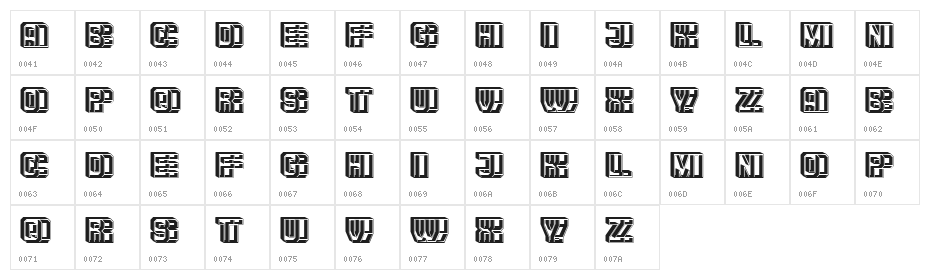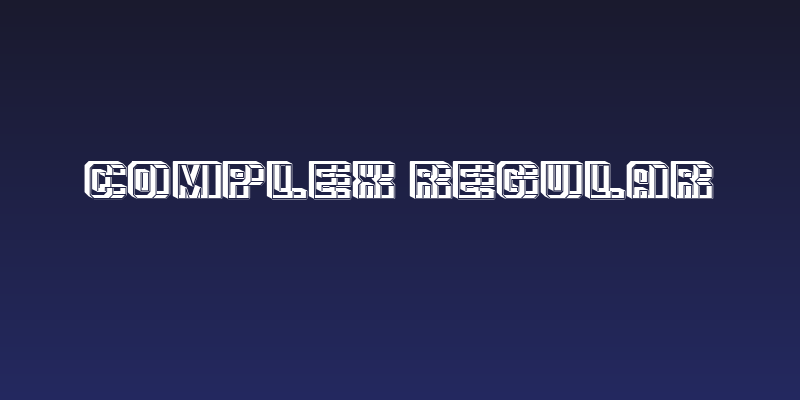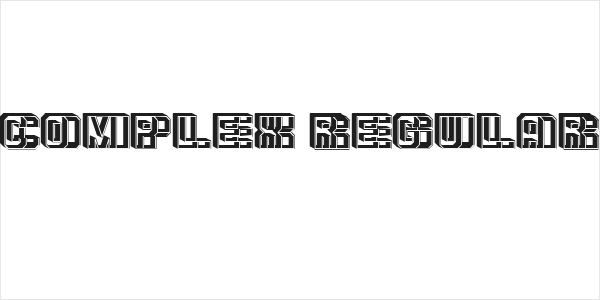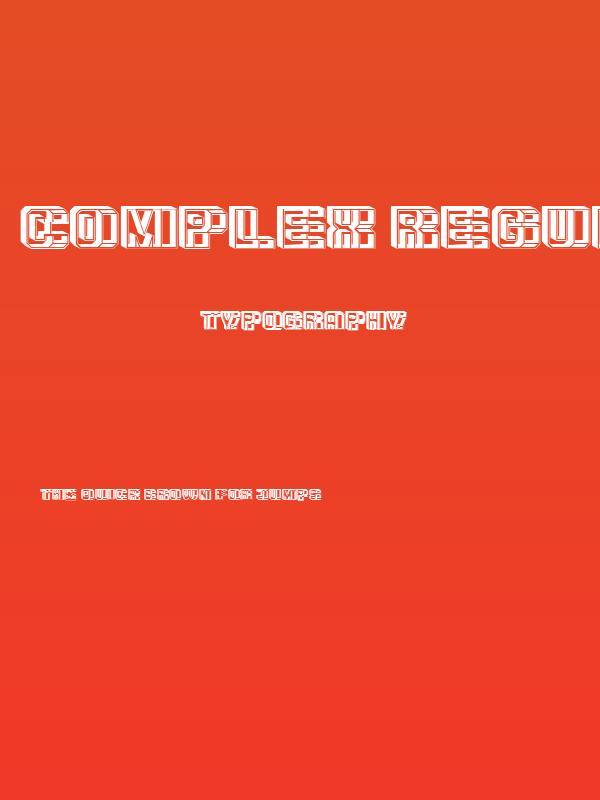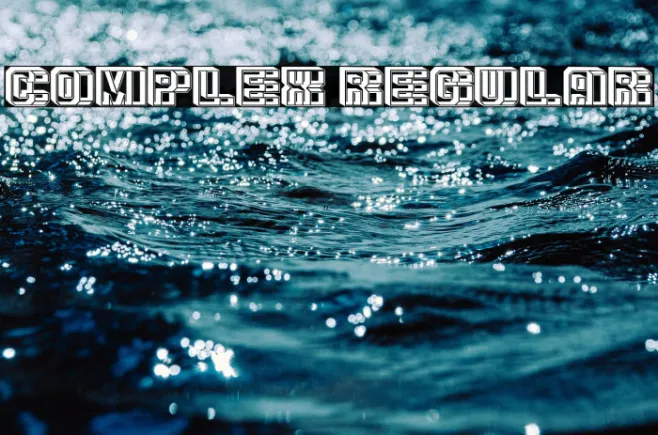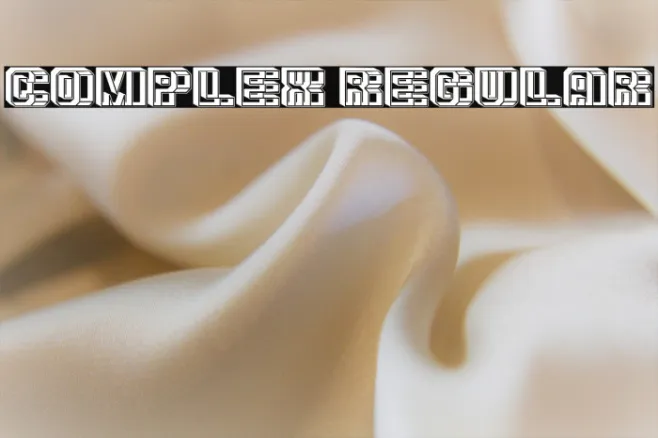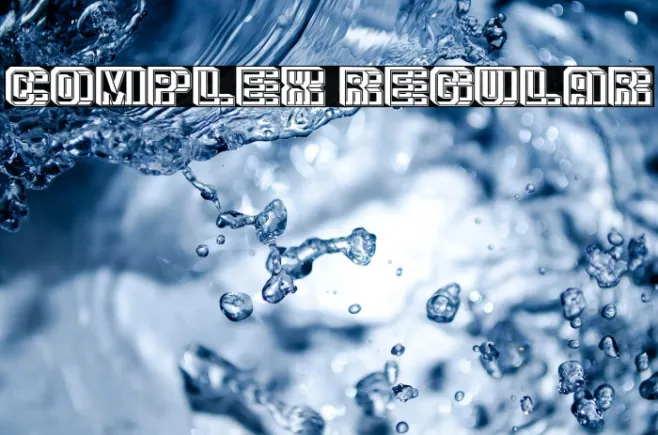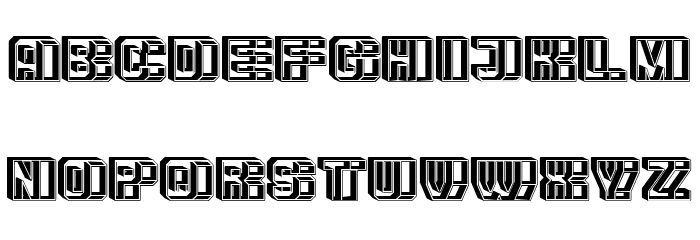
Complex Regular Font
Complex Regular Description
This font features a bold, three-dimensional appearance with a layered, geometric design. Each character is outlined with multiple layers, creating a sense of depth and complexity. The uppercase letters are particularly striking, with sharp angles and a blocky structure that gives them a strong presence. The lowercase letters maintain the same style, ensuring consistency throughout the typeface. The numbers and special characters are designed to match the bold and intricate style of the alphabet, making this font suitable for eye-catching designs. Its unique style makes it ideal for projects that require a standout, decorative element.
| Proposed Projects | Ideal for posters, logos, headlines, and any design requiring a bold, decorative touch. |